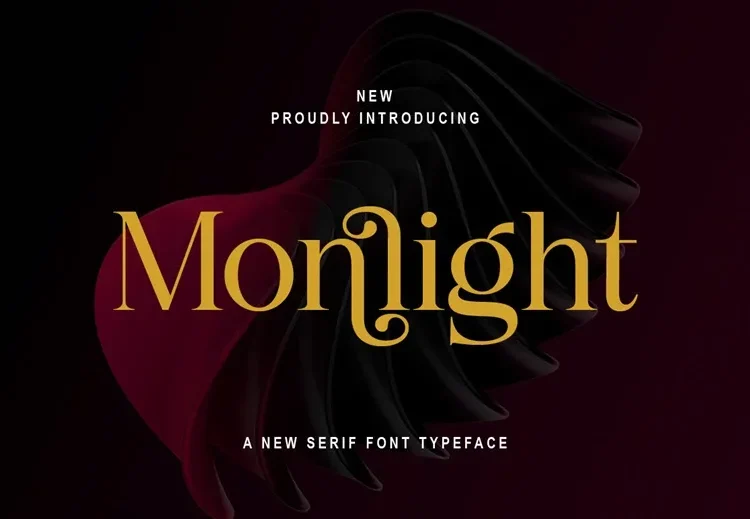
Monlight Font
Monlight is a modern serif font with bold, clean, and well-balanced letterforms, making it perfect for high-impact designs. Its strong yet refined aesthetic ensures clarity and sophistication, whether used in Instagram graphics, posters, website design, magazines, logos, or product branding.
Designed for versatility and elegance, Monlight enhances readability while maintaining a luxurious and professional appeal. Elevate your creative projects with this stylish and contemporary typeface.